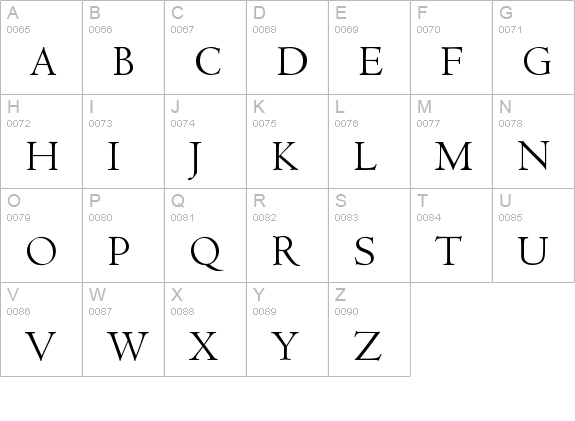
Centaur Expert BQ Roman OsF is a timeless and elegant font that exudes sophistication and class. Its delicate serifs and graceful curves make it perfect for formal documents, invitations, and editorial design. The font features expertly crafted letterforms that ensure readability and visual appeal. What sets Centaur Expert BQ Roman OsF apart is that it is freely available to download at FontsMarket.com. This means that you can easily access this high-quality typeface without any cost, making it a valuable addition to your font collection. Whether you are a designer looking for a classic and versatile font or a writer seeking a refined typographic style, Centaur Expert BQ Roman OsF is a fantastic choice that won't break the bank. Download it today and elevate your projects with this exquisite font.